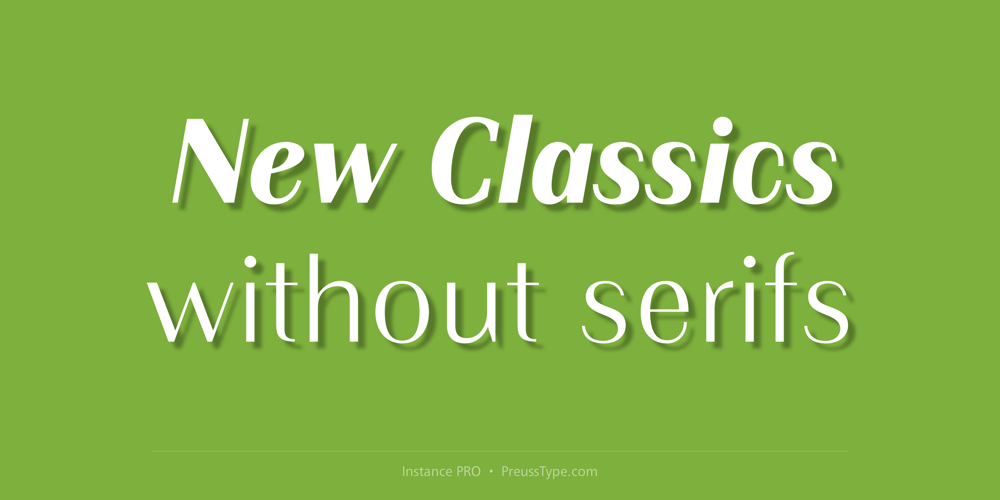
Instance Font Family was designed by Ingo Preuss and published by preussTYPE. Instance contains 12 styles and family package options. German type designer Ingo Preuss created this family between 2014 and 2016. Instance is a new classic built on the foundation of over two centuries of history. Fresh and contemporary, while feeling familiar. This typeface is a high contrast sans serif typeface family and was designed for contemporary typography, especially for use in headlines and on posters, but also for reading purposes. A flexible, medium to high contrast, sans serif less about designing a stylish decorative design and more about applying contrast onto a neo-grotesk skeleton. Instance is more than just chopping off the serifs. The classical proportions of the capitals and x-heights were maintained, but the letterforms were rebalanced for use without serifs. Contemporary modifications were made to some widths, as well as an all new Light weight was created. Please note: Instance STD Office Packages is only as TrueType (* .ttf) and Standard-Version. Also, the character set has been reduced to Standard (without OpenType-Features, SmallCaps, old style figures, etc.). Ideal for testing and for Microsoft Office applications.